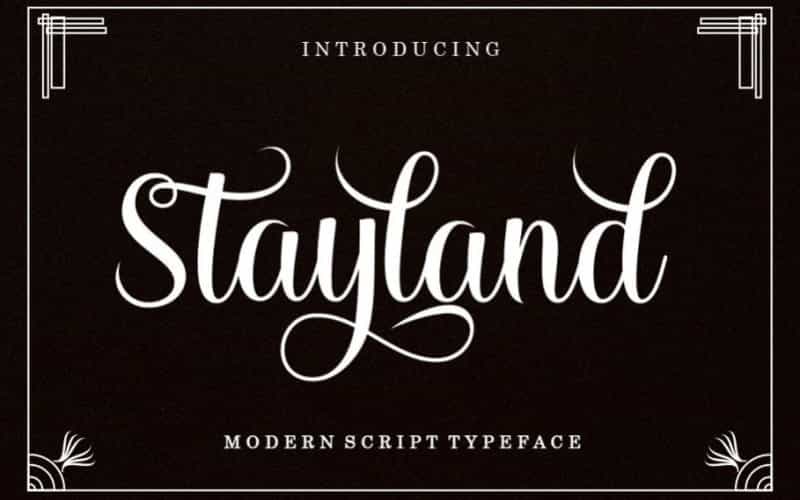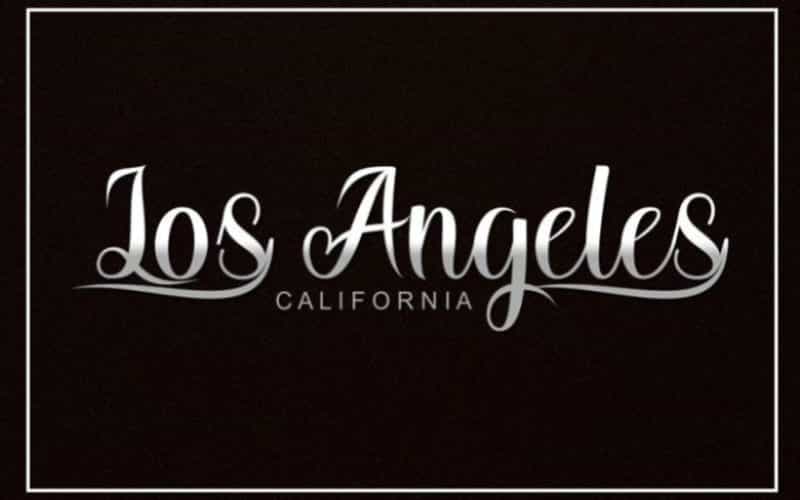
Stayland modern script typeface. This font includes the whole set of lowercase, uppercase, alternative, ligature, punctuation and numbers also it supports different languages. Together with Stayland, he creates amazing calligraphic artworks.